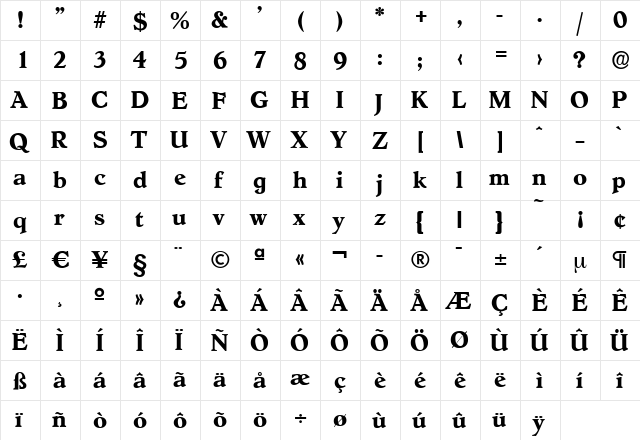
LucasBecker Bold
Design Context for LucasBecker Typeface
LucasBecker is a composed and adaptable typeface that performs quietly and consistently across a wide range of design contexts. Its bold stroke weight gives it real presence on the page.